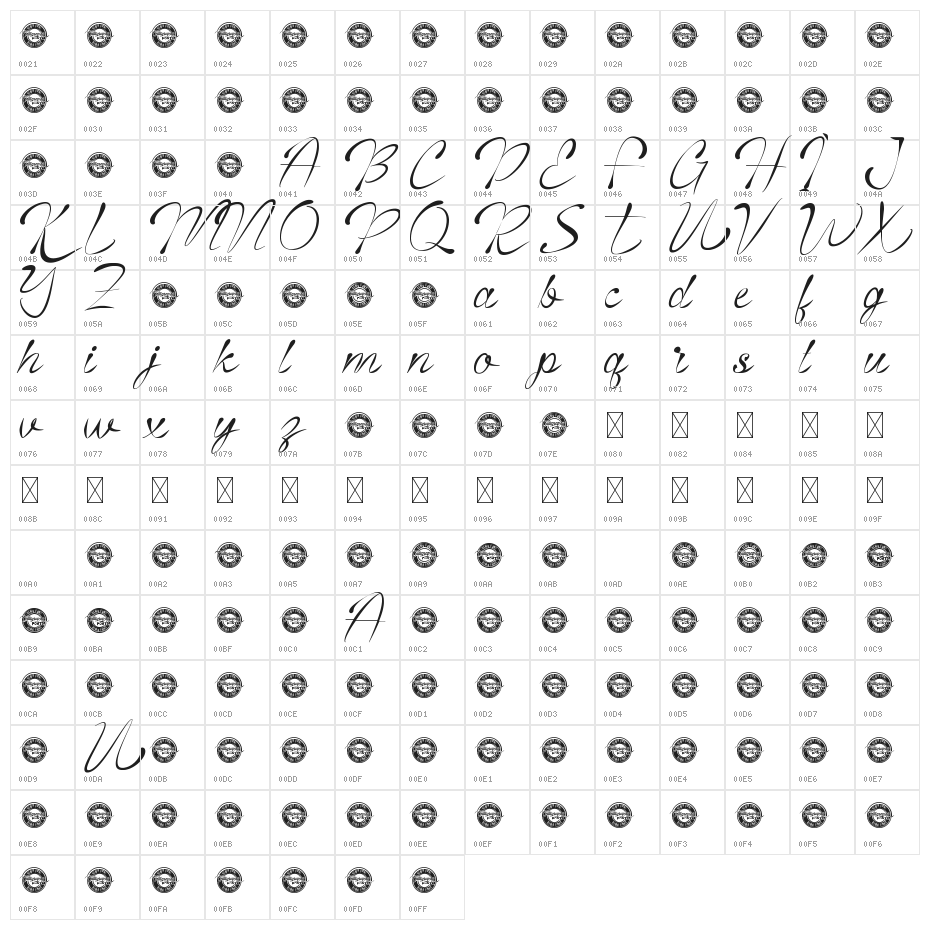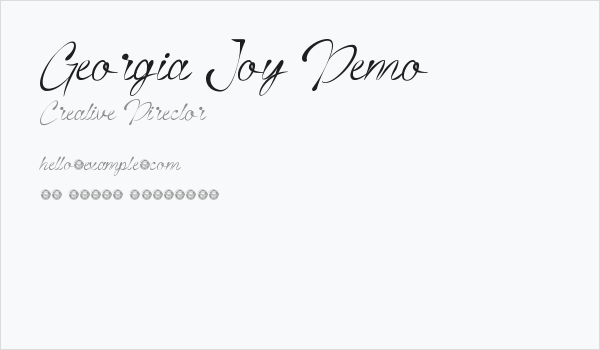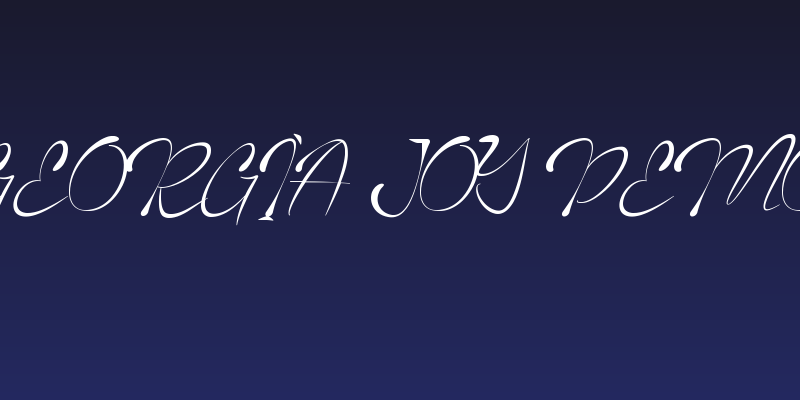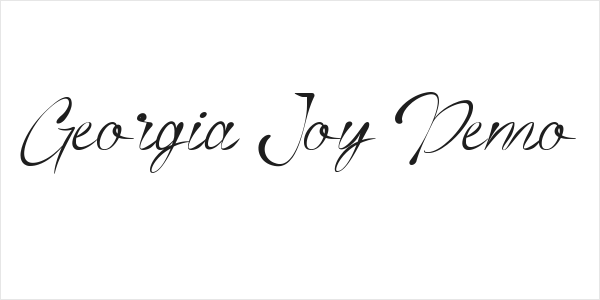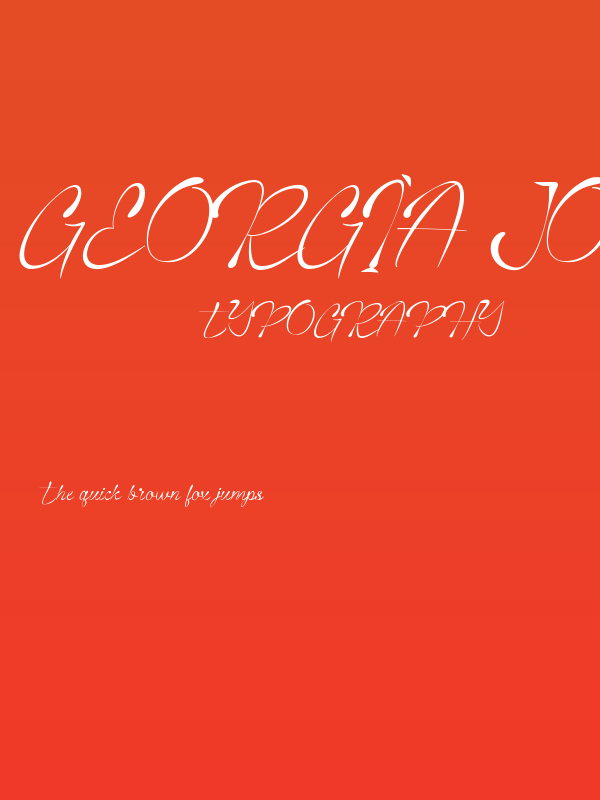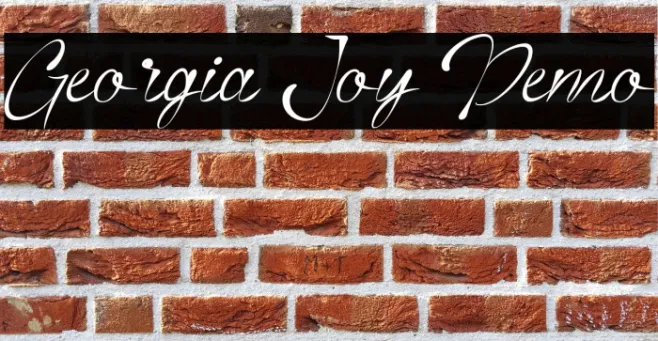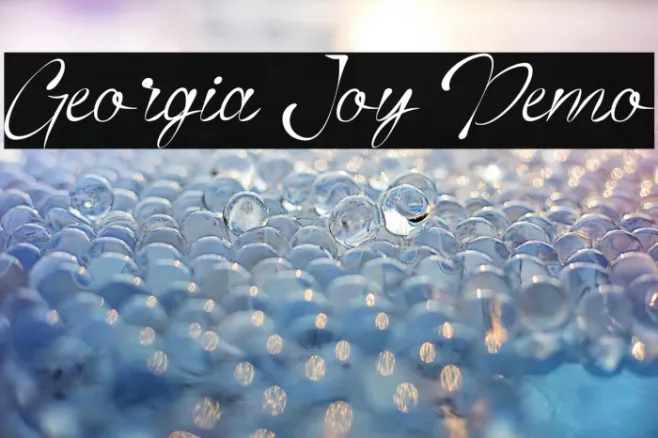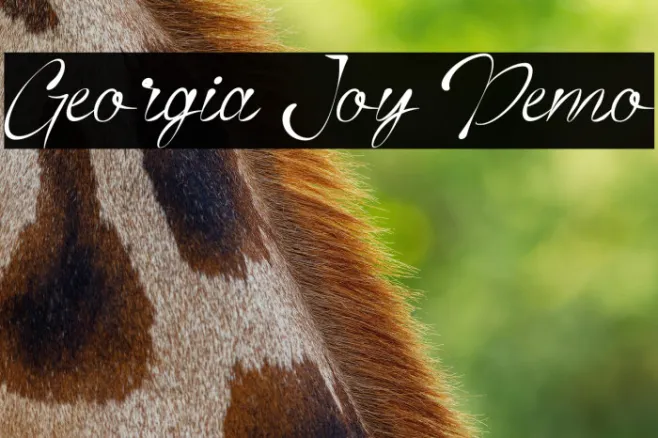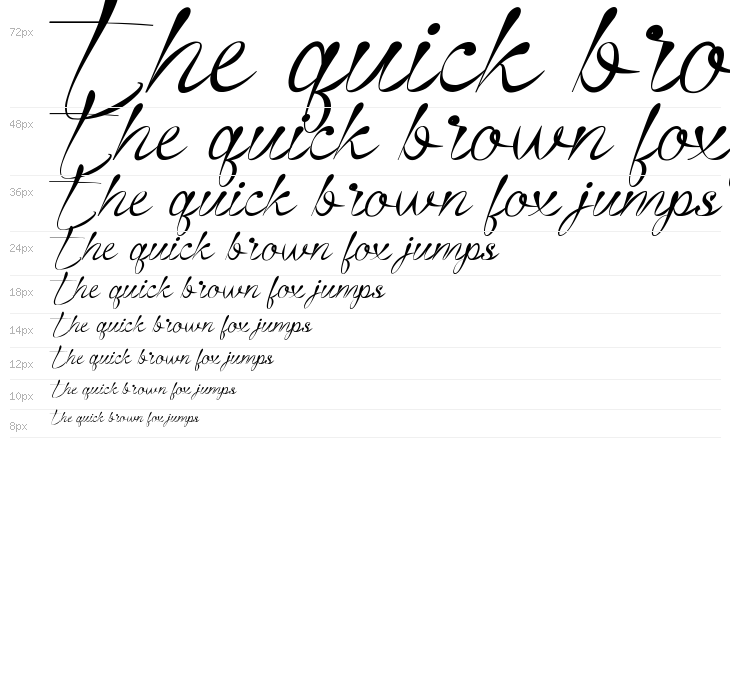
Georgia Joy Demo Font
Georgia Joy Demo Description
This font exudes elegance and sophistication with its flowing, cursive script style. The characters are connected, creating a seamless and fluid appearance that mimics traditional calligraphy. The strokes vary in thickness, adding a dynamic and lively feel to the text. The uppercase letters are tall and graceful, while the lowercase letters maintain a consistent flow, enhancing readability. The font's overall design is both classic and modern, making it versatile for various applications. Its artistic flair is perfect for projects that require a touch of elegance and creativity.
| Overall Style | Elegant, Classic |
| Proposed Projects | Ideal for wedding invitations, greeting cards, branding, and logo design where elegance and sophistication are desired. |